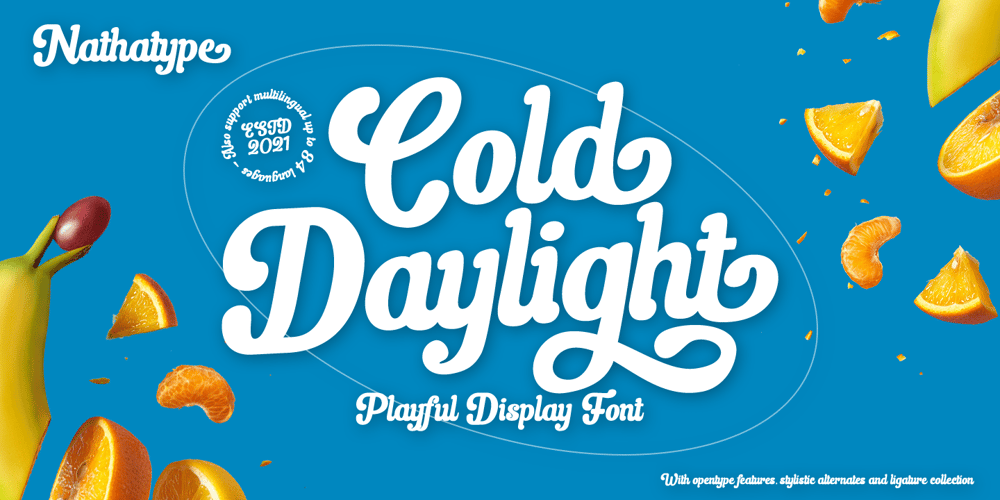
Cold Daylight Font Family was designed by Donis Miftahudin and published by Nathatype. Cold Daylight contains 1 styles and family package options. Do you want to enhance your branding? Do you dream of getting playfu;, stylish, modern, and adventure font? What if we told you, you only need to change one element to engage and convert your clients? Cold Daylight-A Display FontCold Daylight is a display font designed to bring your branding to life and add a touch of playfulness, cheerful, and style. We are hoping that through this font, you can maximize your designs! In turn, you’ll communicate the perfect idea to your audiences or clients. The best choice for branding projects, book/magazine cover, fashion designs, quotes, packaging, or even as a stylish text overlay to any background image. Our font always includes Multilingual Support to make your branding reach a global audience. Features:- Ligatures- Stylistic Sets- Swashes- PUA Encoded- Numerals and PunctuationThank you for downloading premium fonts from Nathatype